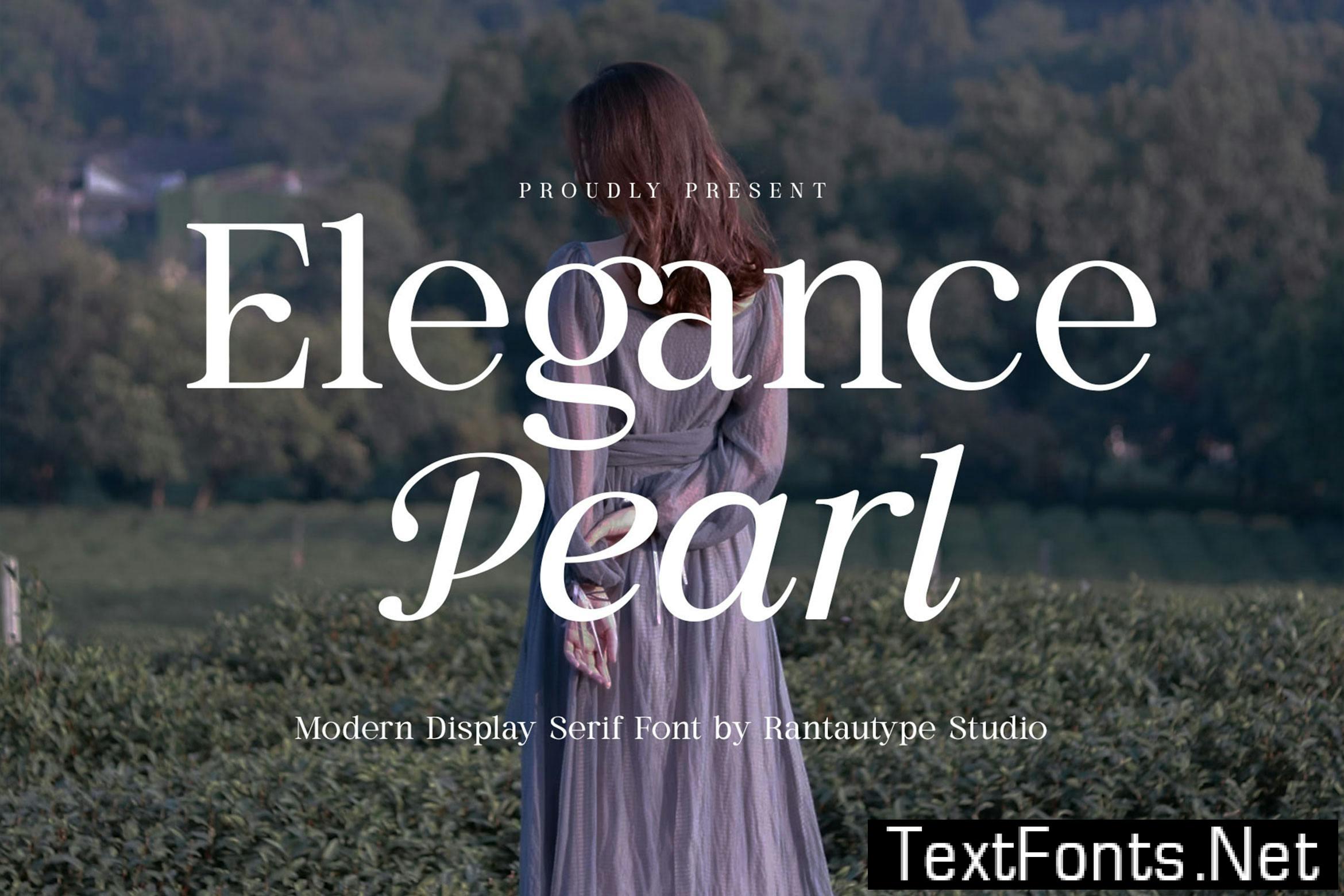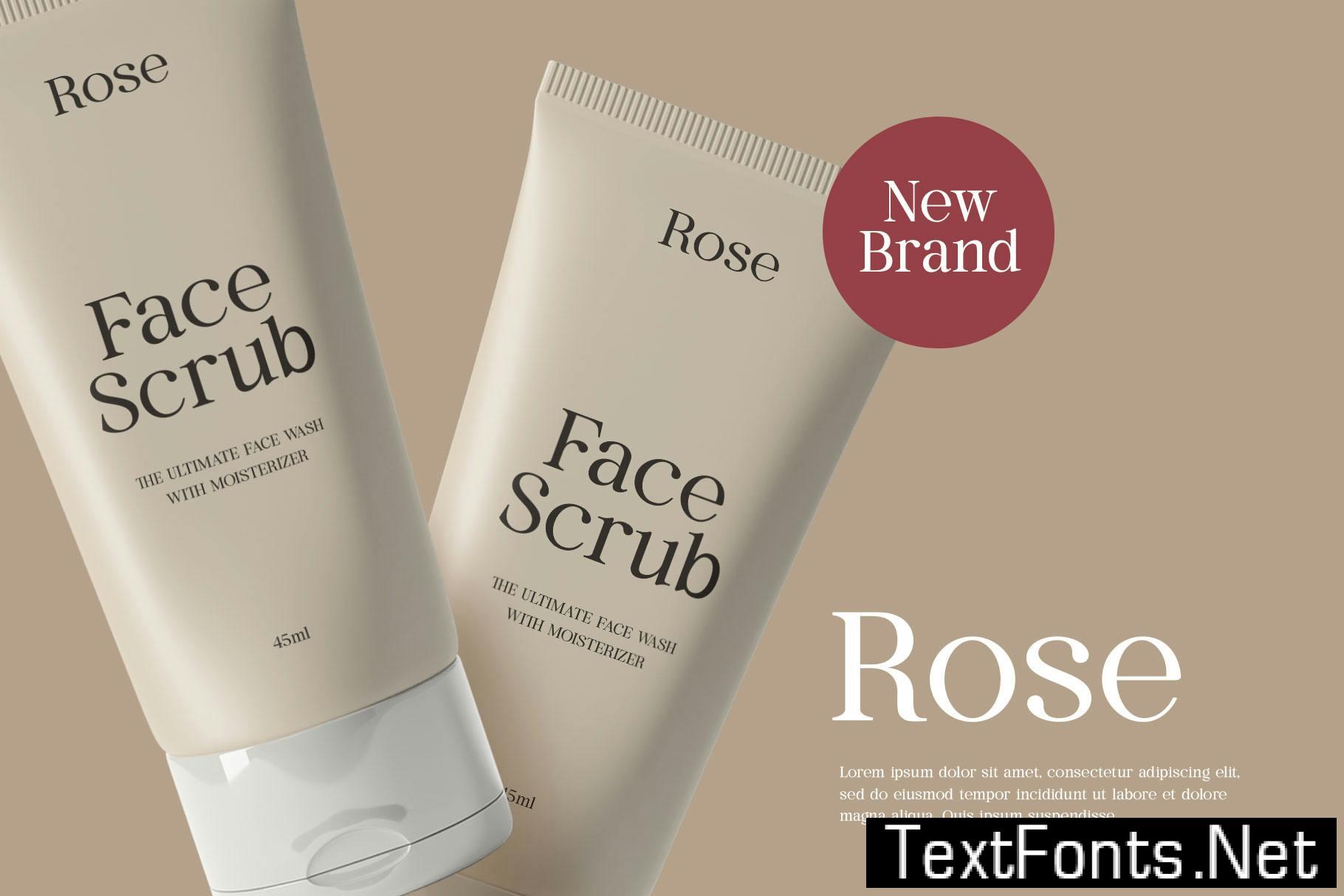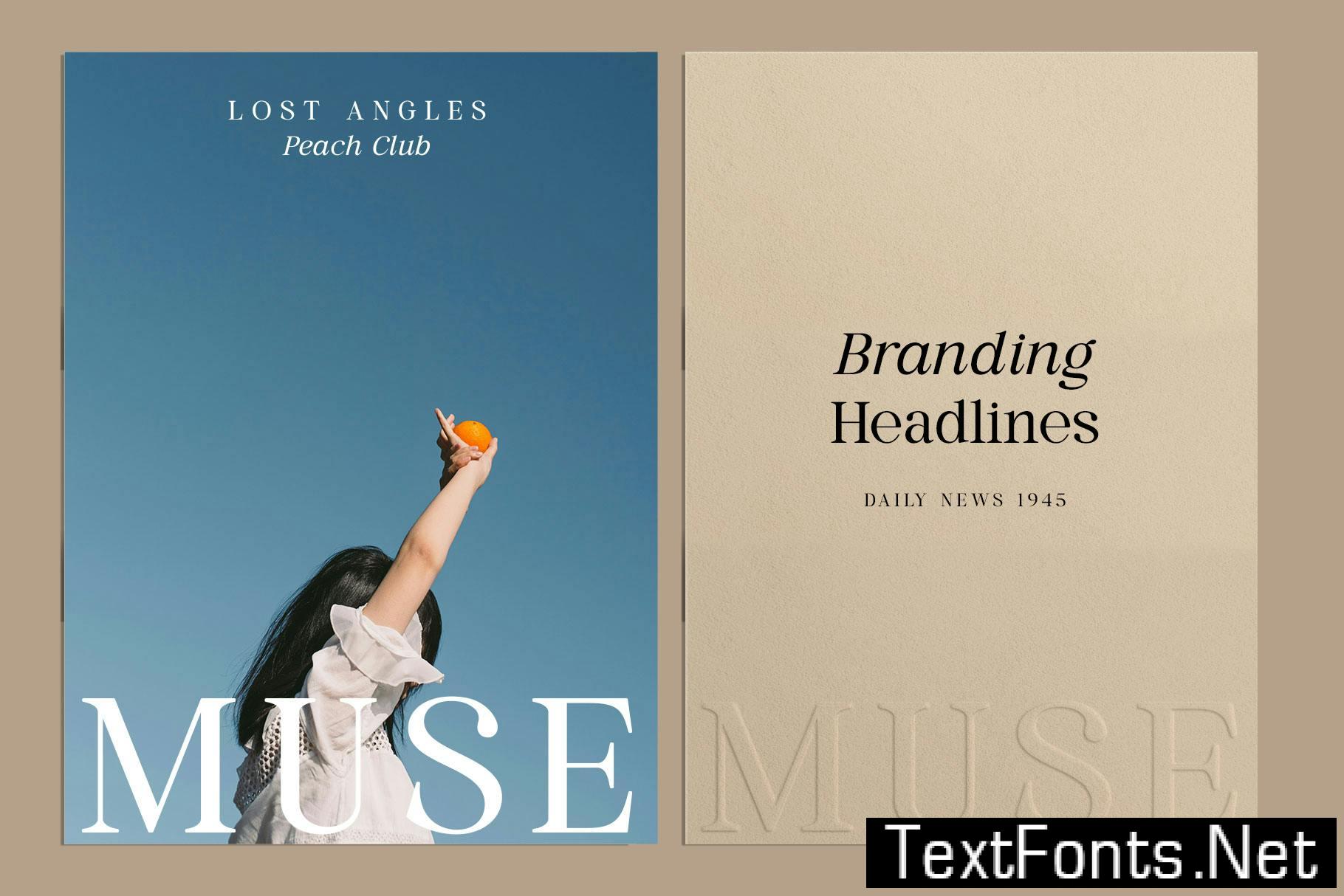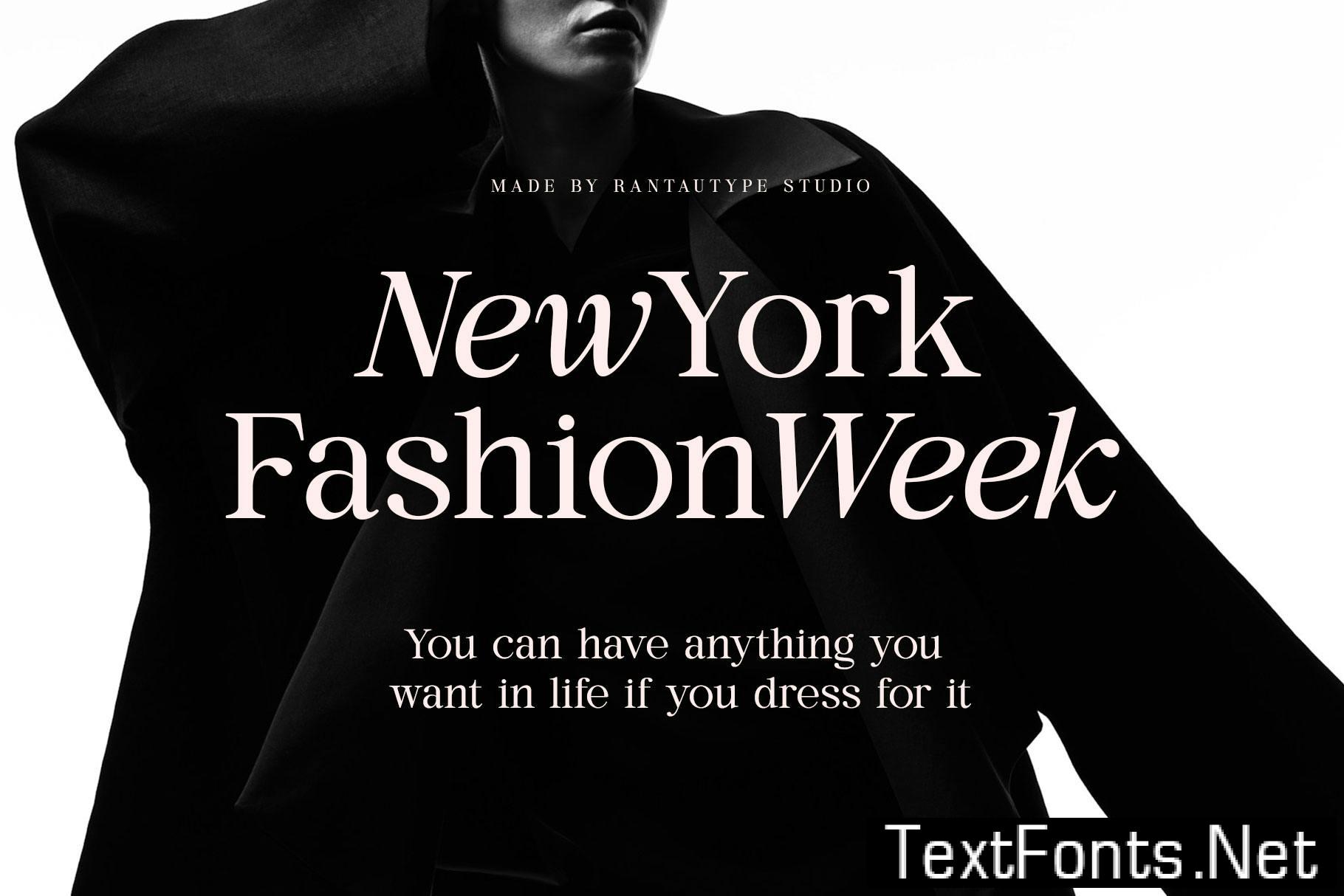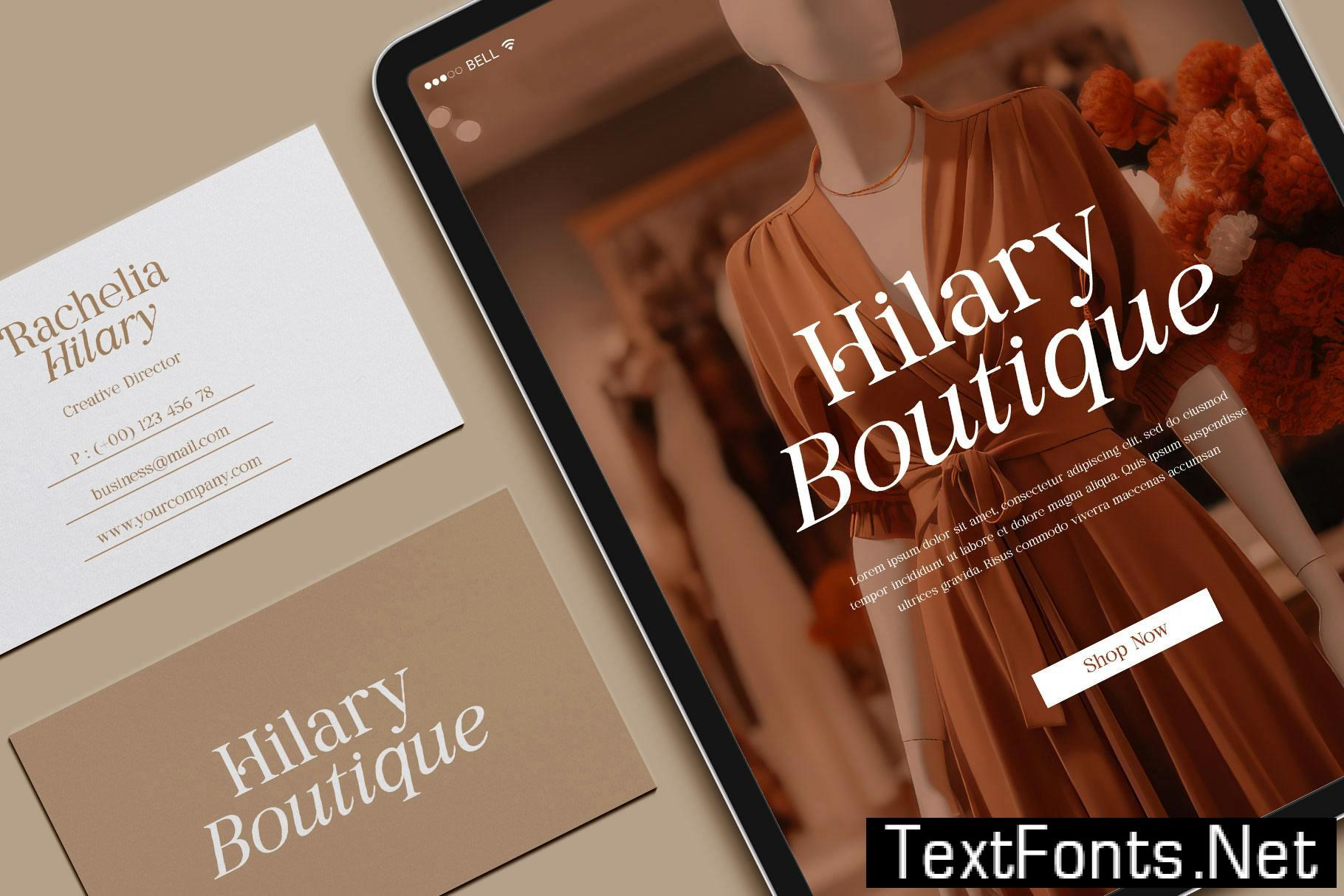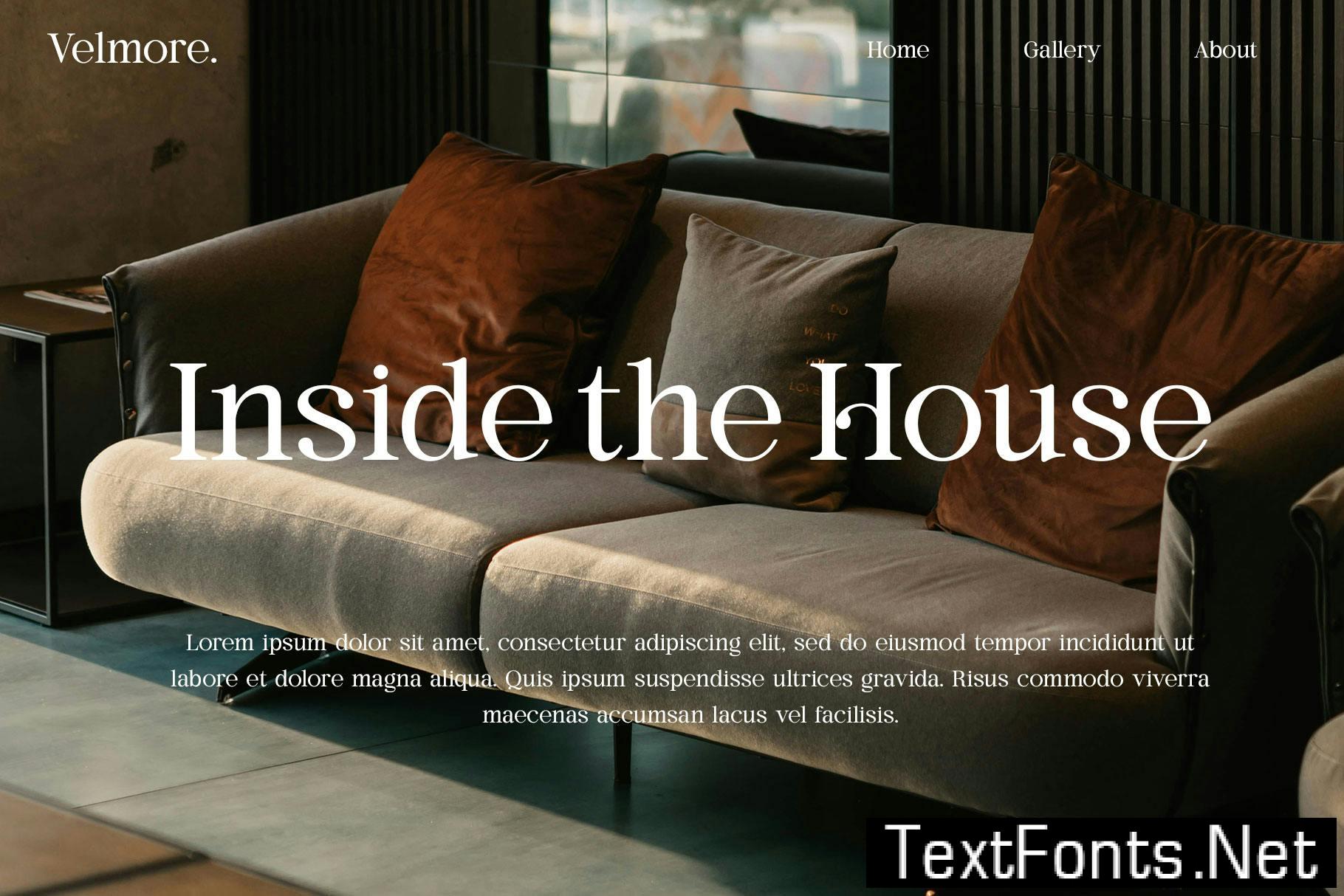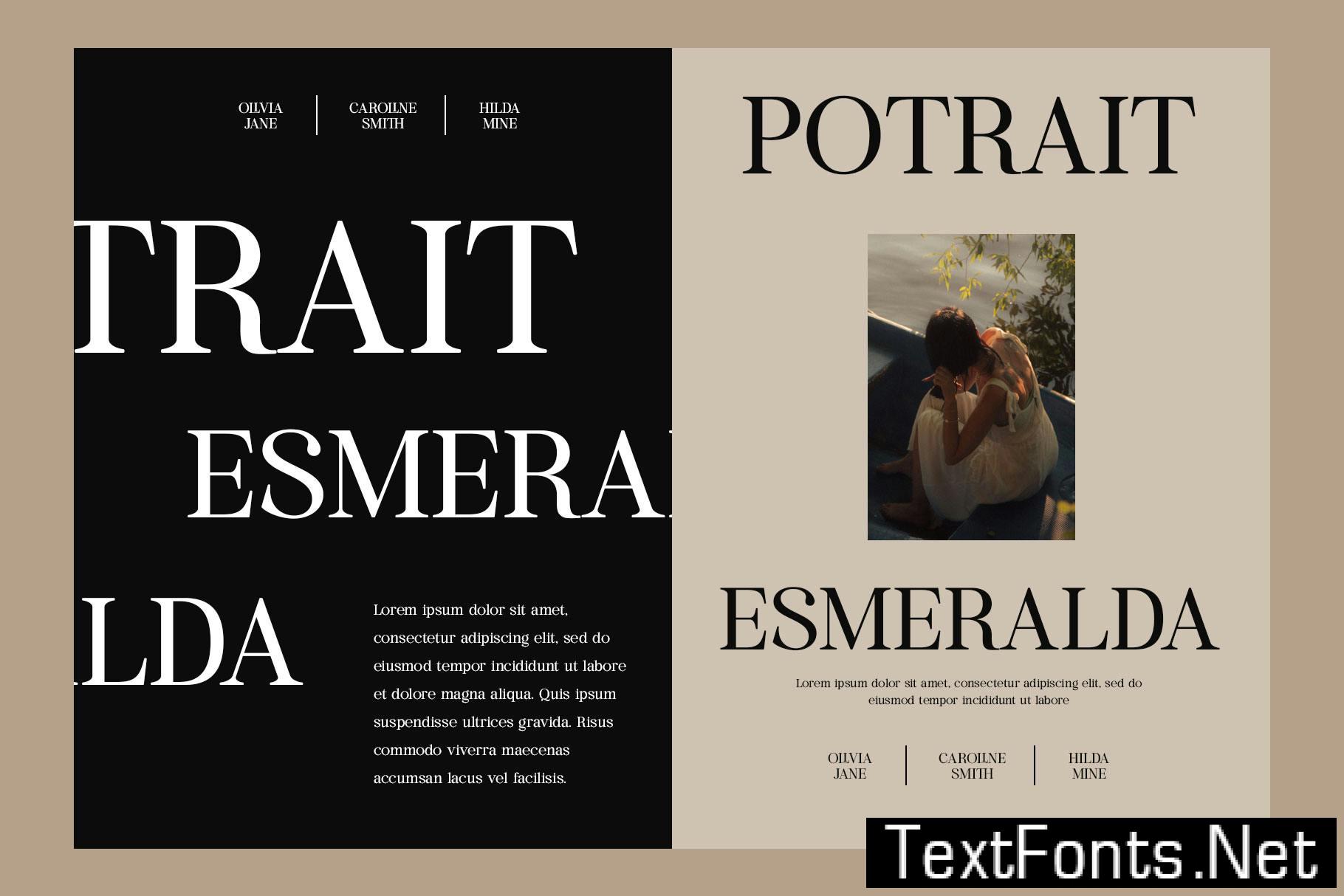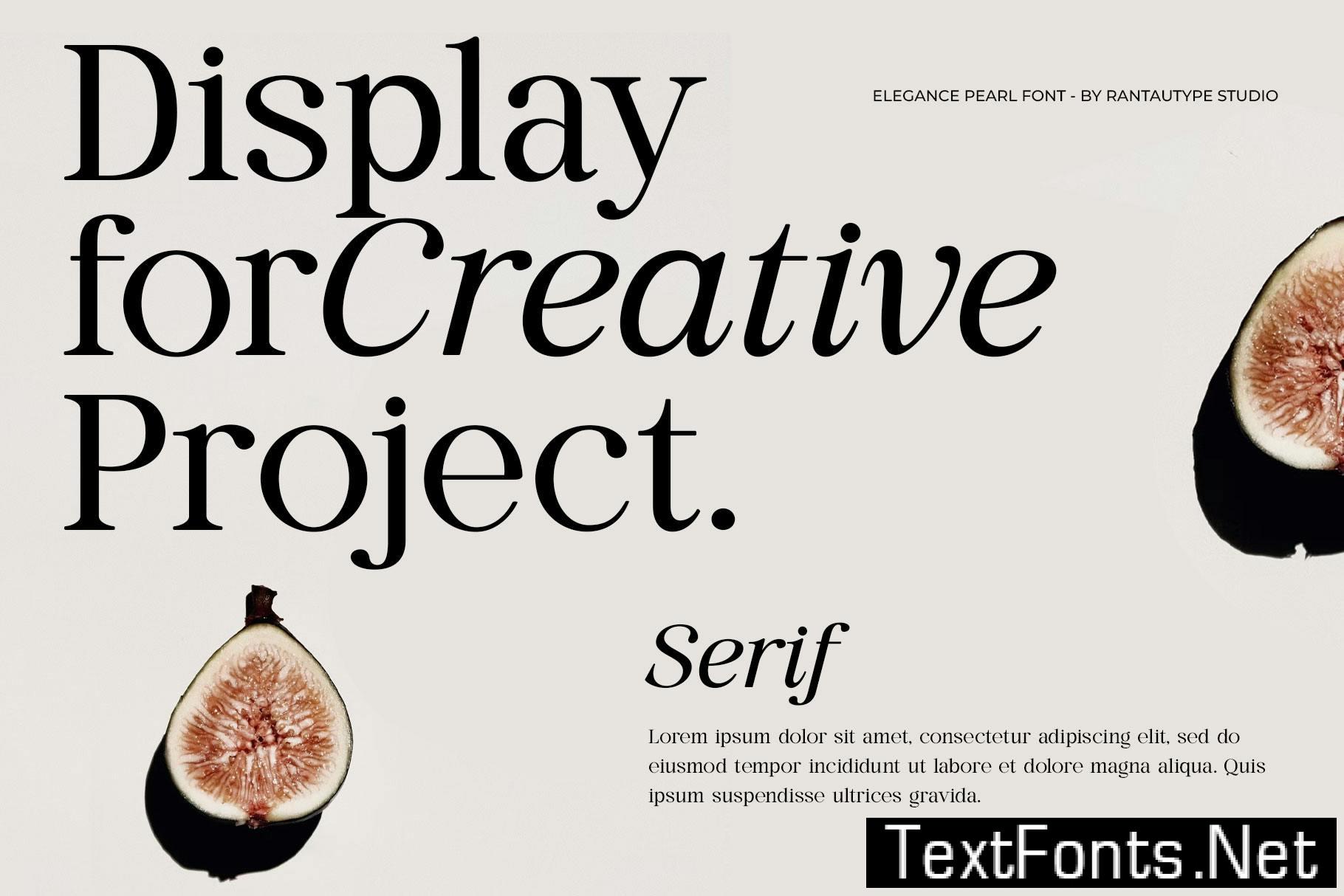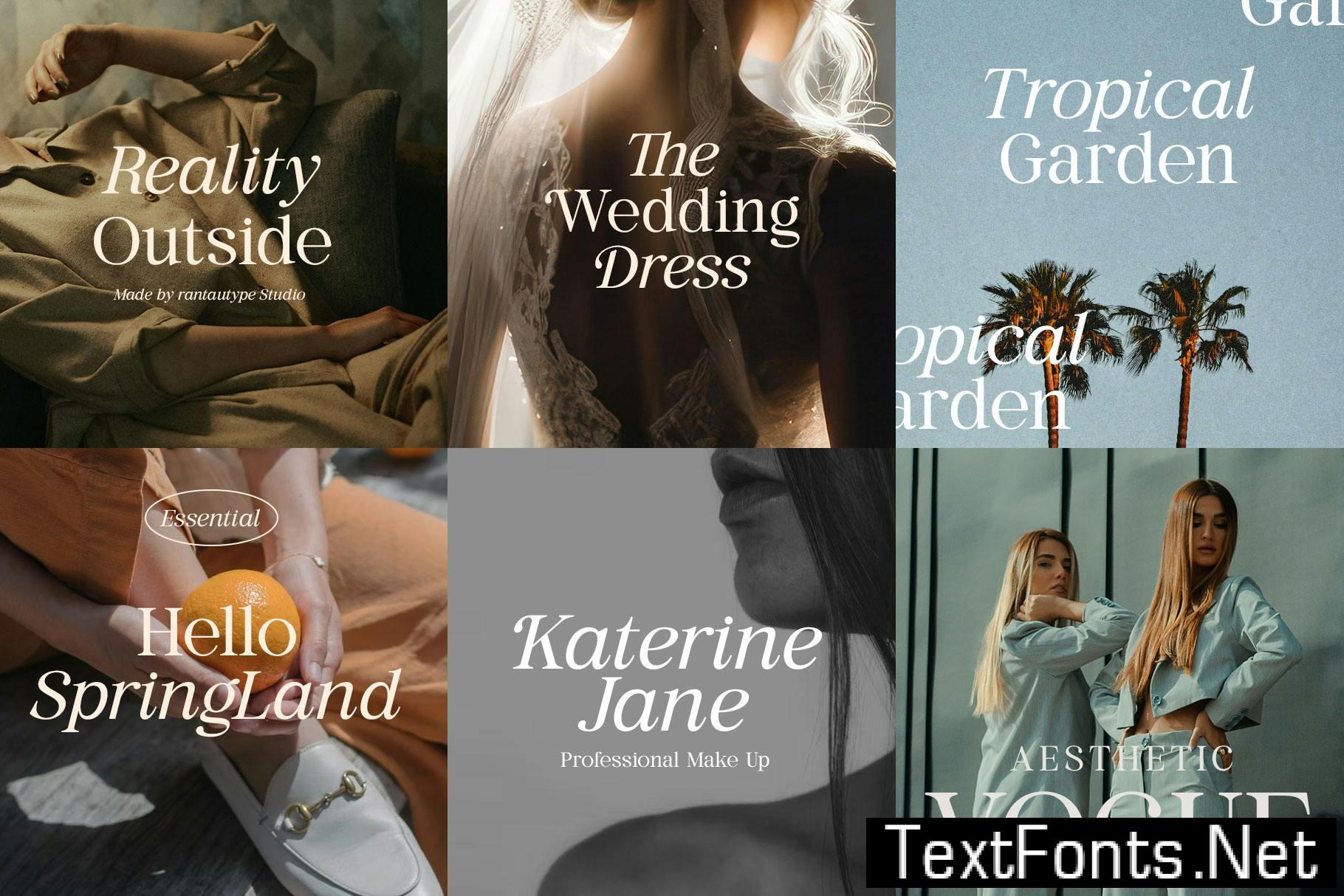
Elegance Pearl is a modern display serif font with soft line that embraces elegance and grace. Its delicate curves and refined details create a sense of sophistication and femininity. Elegance Pearl bring two version reguler and italic version very suitable for your design with nostalgic vibes.
Elegance Pearl is a perfectly choice for any creative endeavor, chic, lifestyle design such as logos, advertisements, watermark on photography, stationery, branding project, display and magazine, invitation, corporate brand, product design, label, business project.
* Standart Glyphs
* Numberial and Functional
* Alternate and Ligature
Fonts include **Multilingual Character** for: Afrikaans, Albanian, Asu, Basque, Bemba, Bena, Breton, Chiga, Cornish, Dutch, English, Estonian, Filipino, Finnish, Friulian, Galician, Gusii, Indonesian, Irish, Italian, Kabuverdianu, Kalenjin, Kinyarwanda, Luo, Luxembourgish, Luyia, Machame, Makhuwa-Meetto, Makonde, Malagasy, Manx, Morisyen, North, Ndebele, Nyankole, Oromo, Portuguese, Quechua, Romansh, Rombo, Rundi, Rwa, Samburu, Sango, Sangu, Scottish, Gaelic, Sena, Shambala, Shona, Soga, Somali, Spanish, Swahili, Swedish, Swiss, German.